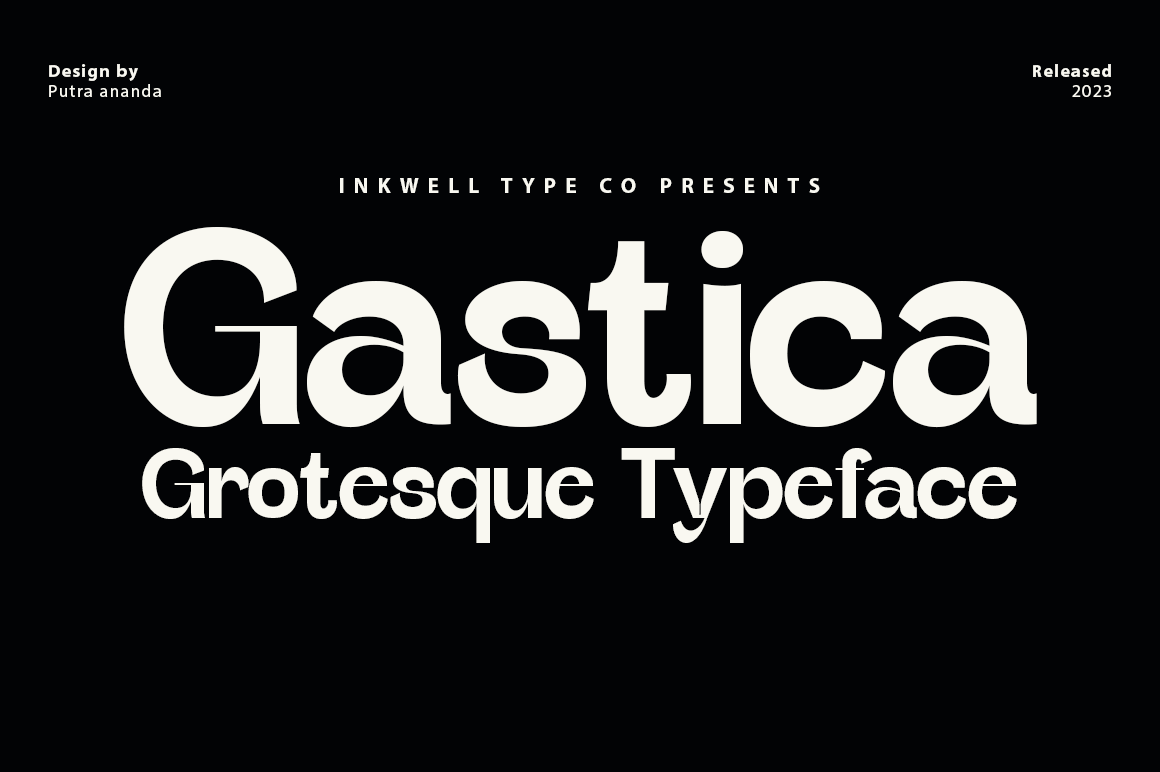
Gastica - Grostesque Typeface
Gastica is an alluring and dazzling display font. With unique letterforms and a modern style, this font is designed to grab attention and make your message stand out.
Gastica has boldness in every letter and elegant style. This font is perfect for titles, logos, and other design elements that you want to draw attention to.
With various variants and font weights available, Gastica provides flexibility in expressing your creativity. Whether you want a strong and bold look, or a more subtle and elegant look, this font can meet your design needs